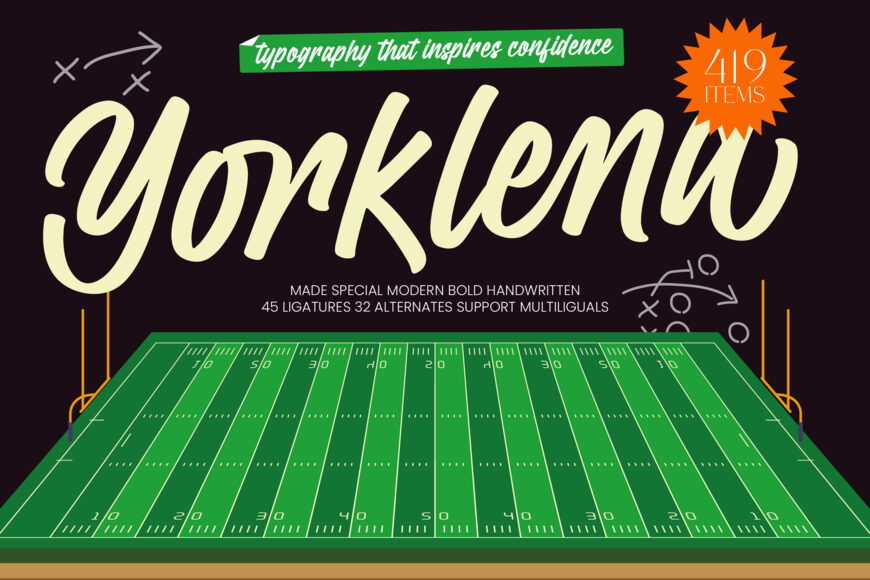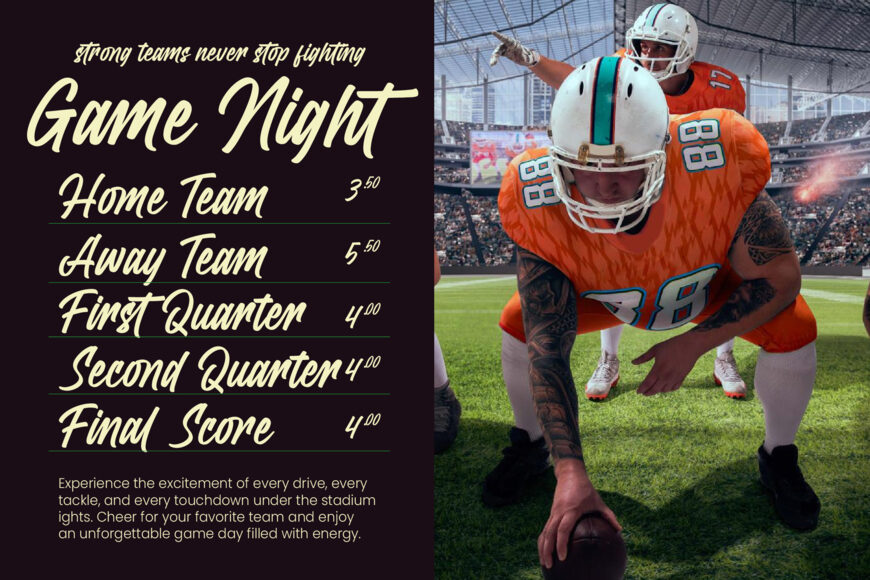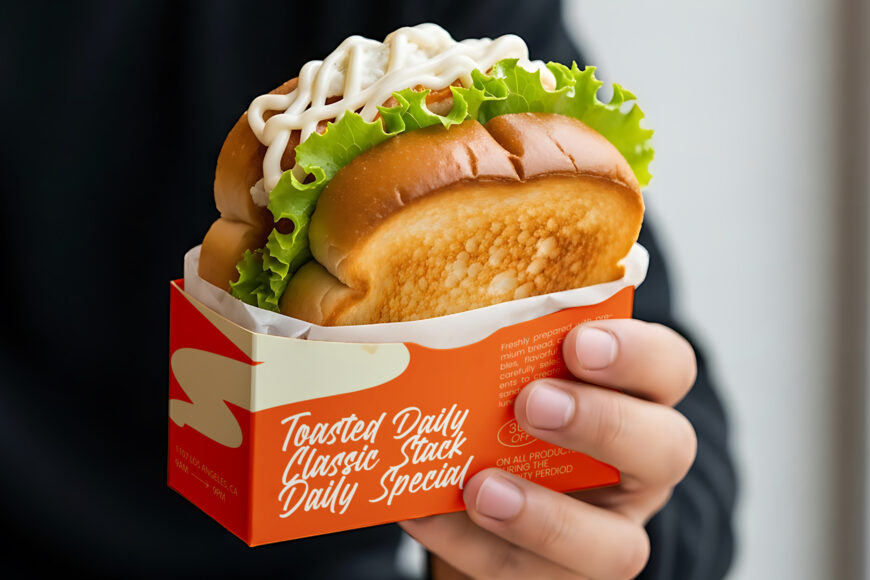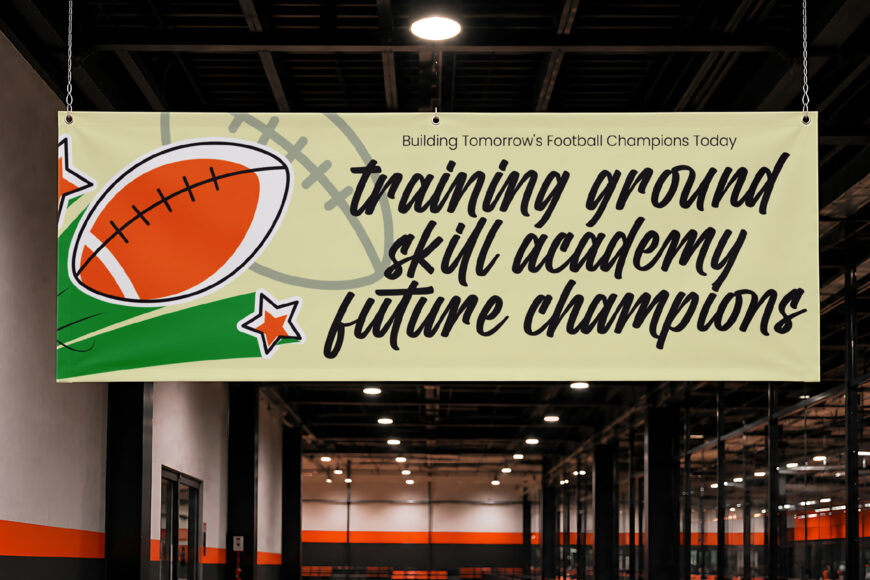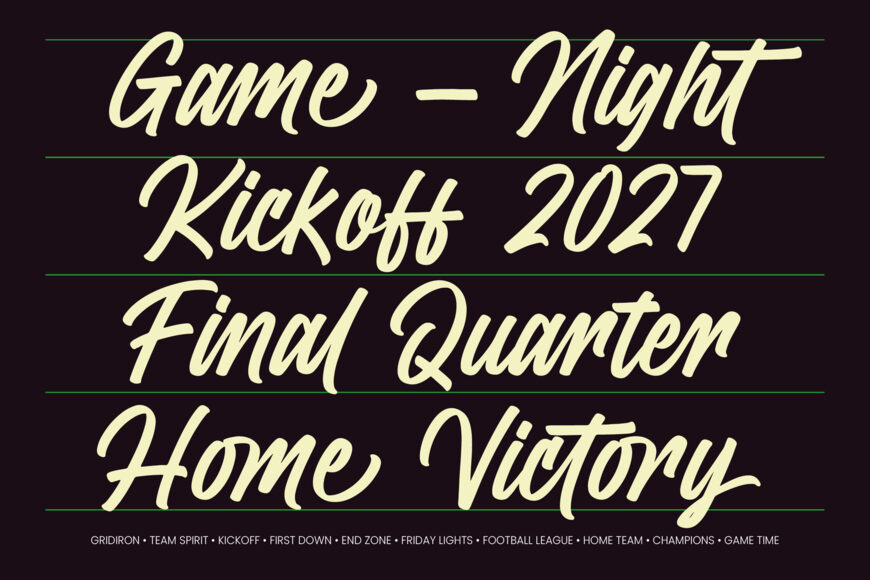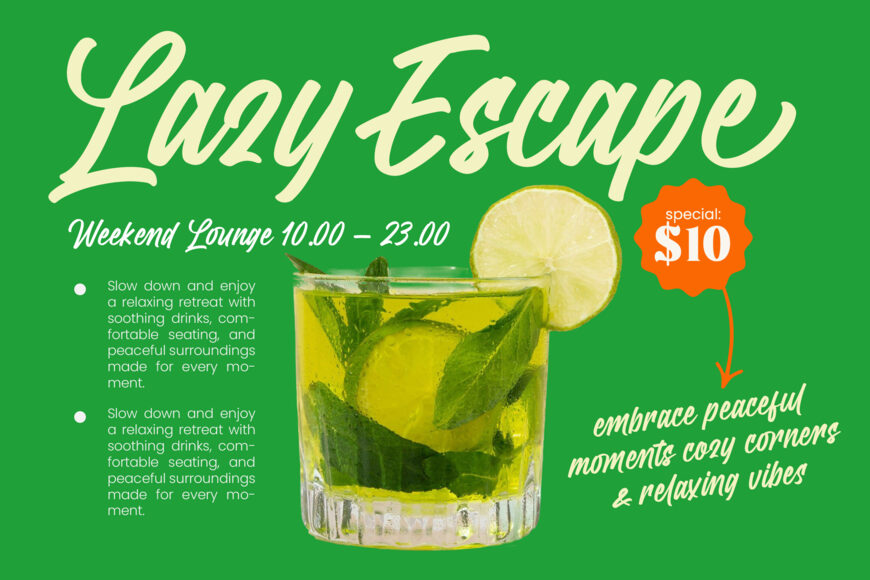
Elevate your designs with a bold, handwritten font that combines energy and refinement. Ideal for making a statement, it’s perfect for sports branding, luxury packaging, and high-end editorial design.
With extensive multilingual support and varied lettering options, it adapts seamlessly to global markets, ensuring a unique and authentic look. Its bold weight and fluid movement make it great for dynamic headlines that stand out in a crowded market.